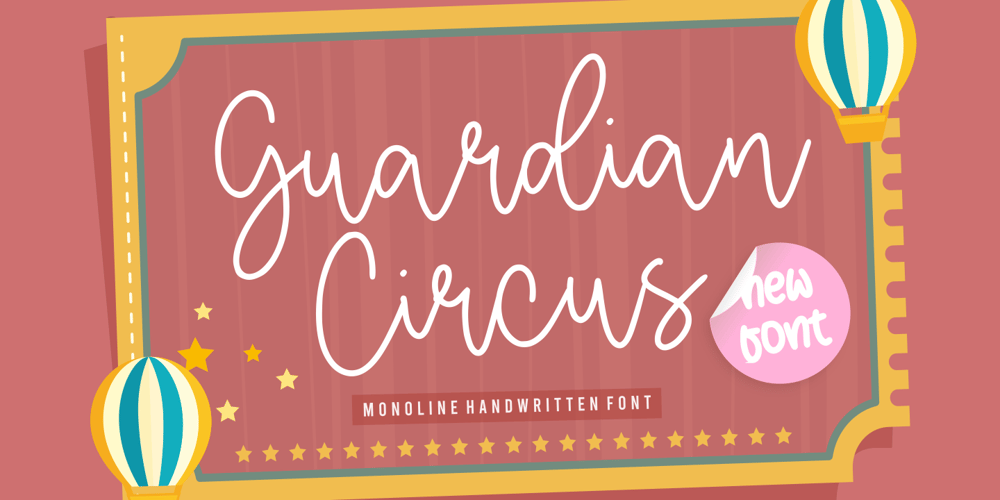
Guardian Circus Font Family was designed by Restu Angga and published by Balpirick. Guardian Circus contains 1 styles and family package options. Guardian Circus Font.Guardian Circus is a Monoline Handwritten Font.Guardian Circus is a sweet, thin and natural handwritten font. It looks friendly and adaptable and it will certainly enhance each and every one of your designs.Guardian Circus also multilingual support.Enjoy the font, feel free to comment or feedback, send me PM or email.